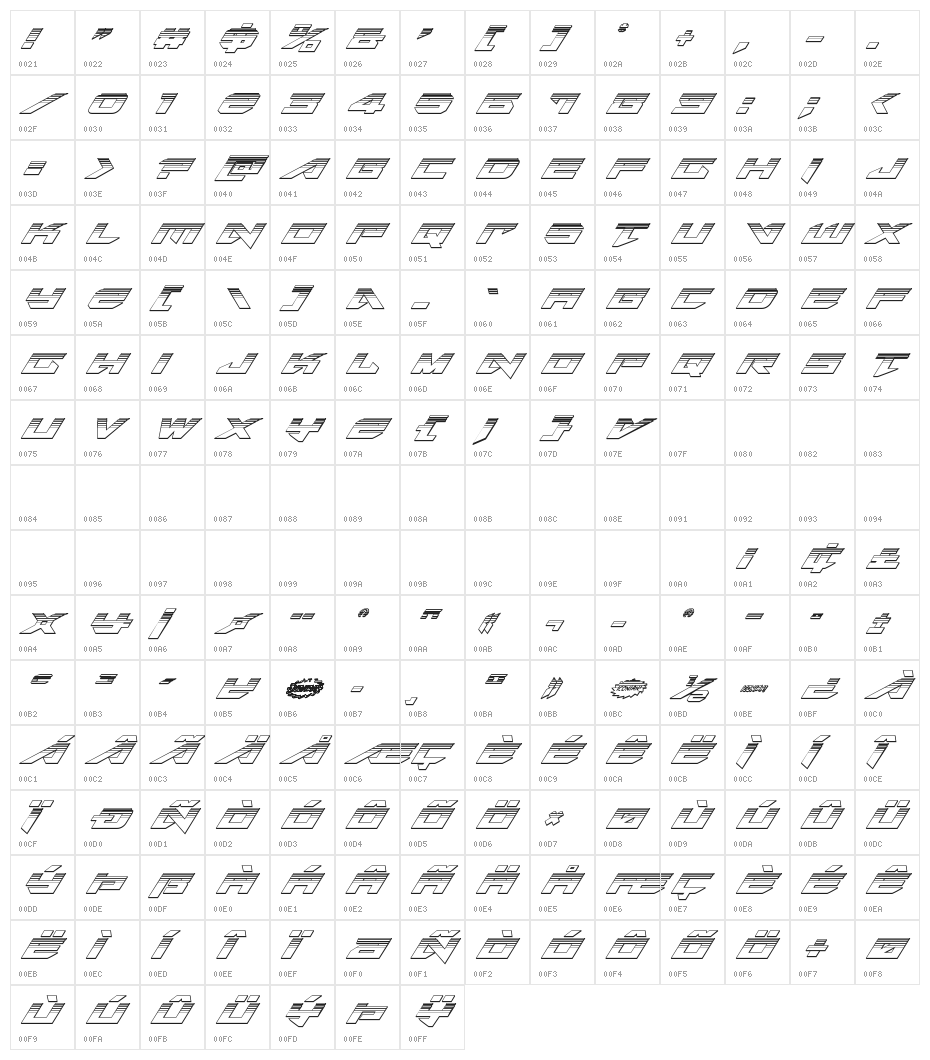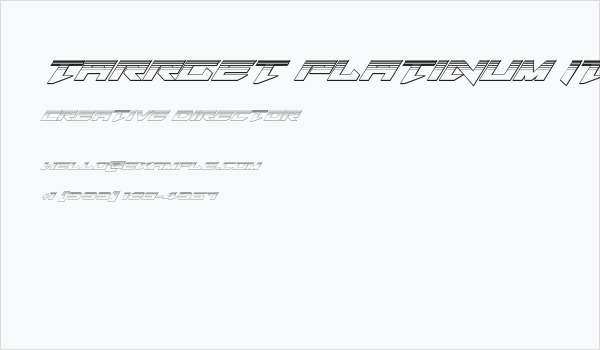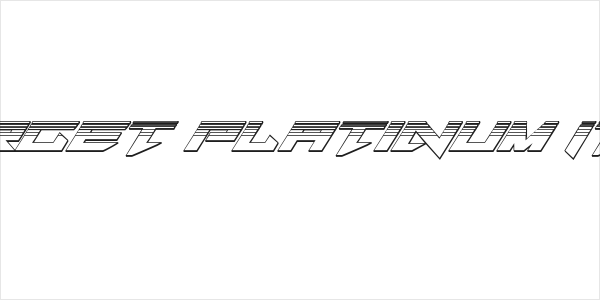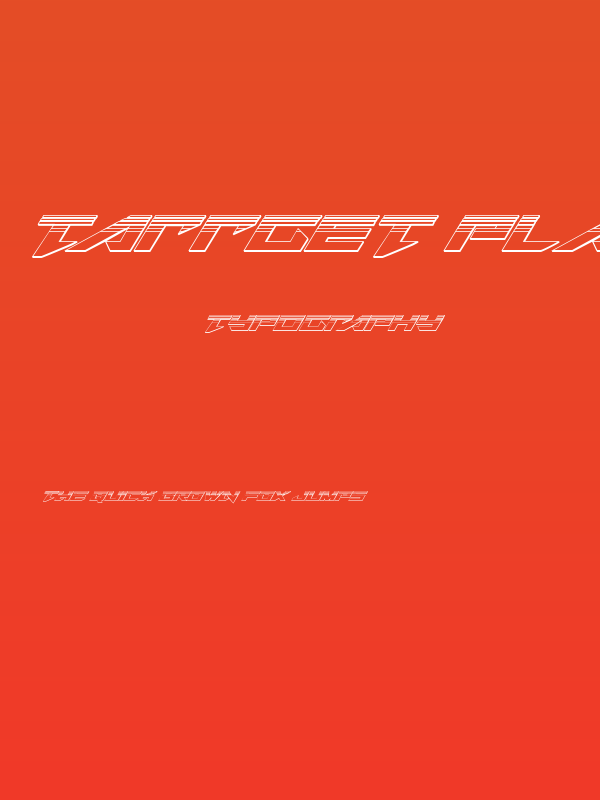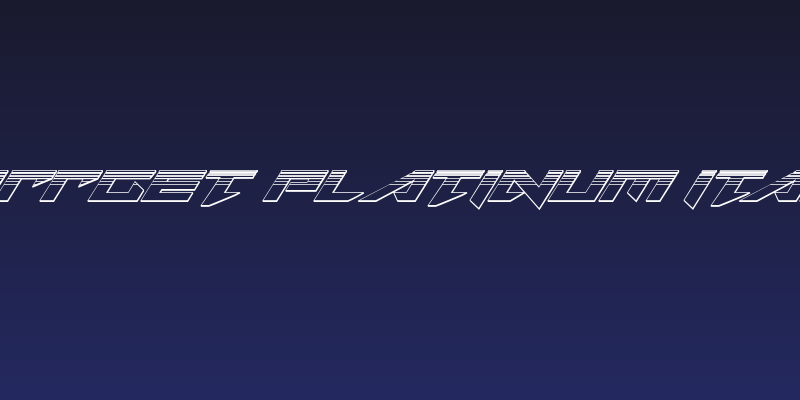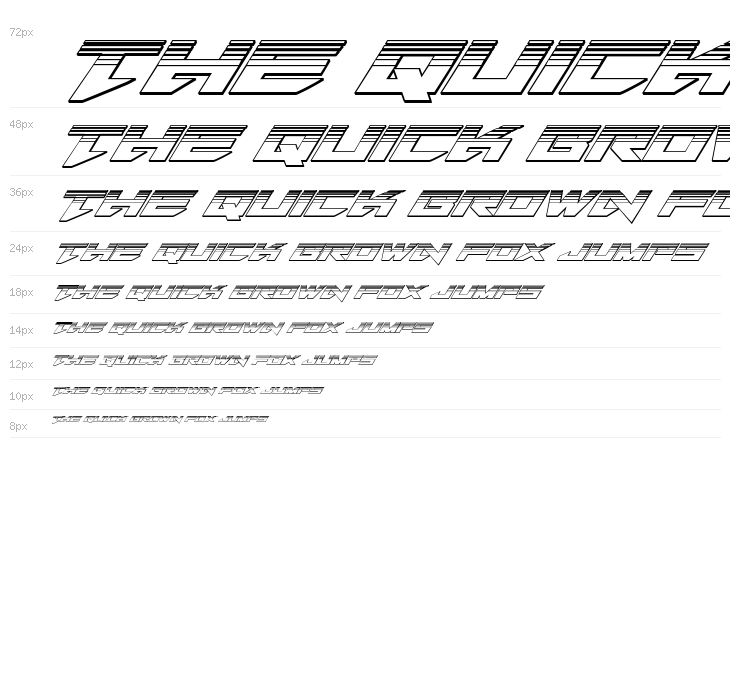
Tarrget Platinum Italic Font
Tarrget Platinum Italic Description
This font features a futuristic and dynamic design with sharp, angular lines and a distinct italic slant. The characters are outlined with multiple parallel lines, giving a sense of speed and movement. The uppercase letters are bold and commanding, while the lowercase letters maintain the same energetic style. Numbers and special characters are designed to match the overall aesthetic, making the font suitable for attention-grabbing headlines and modern branding. The unique style is both decorative and functional, ideal for projects that require a strong visual impact.